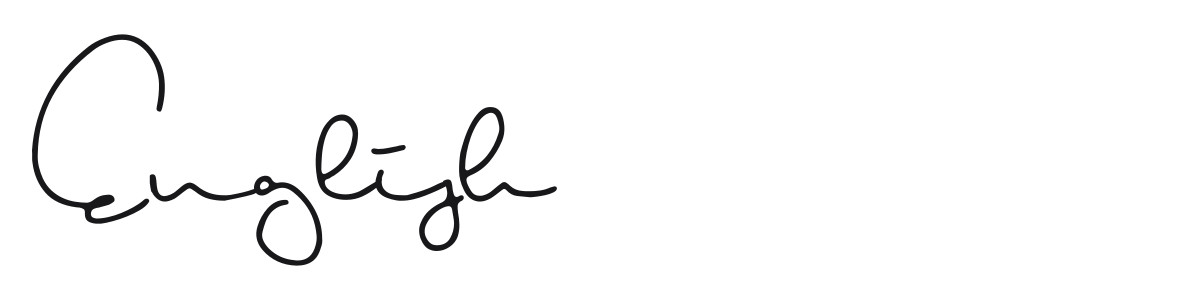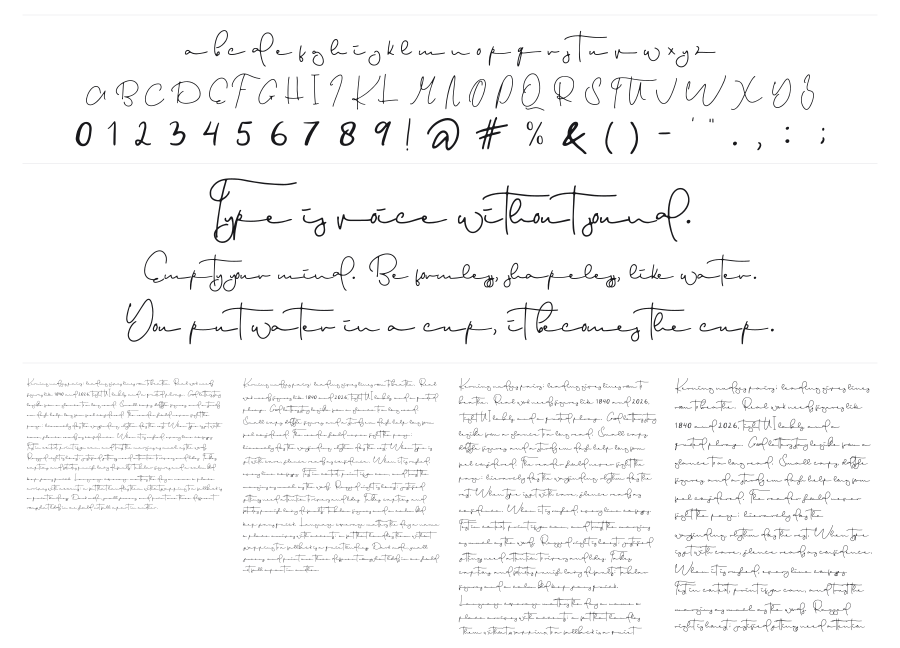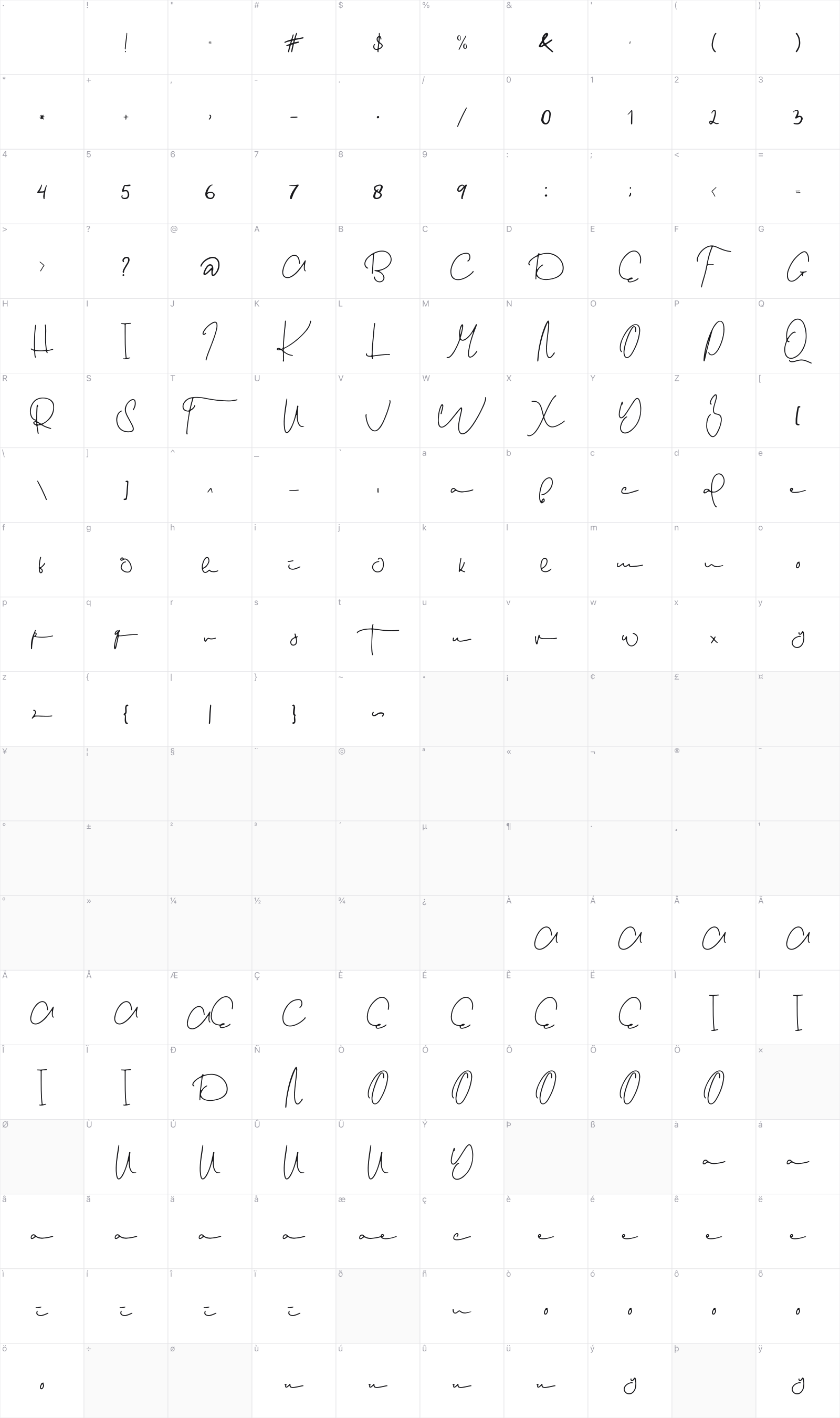
English
English is a hairline cursive script with long, sweeping strokes that connect characters in a single continuous flow. The ultra-thin weight and loose, looping construction give it a handwritten spontaneity that still reads as polished and deliberate. It sits comfortably in wedding design, boutique branding, and editorial contexts where elegance is the point.